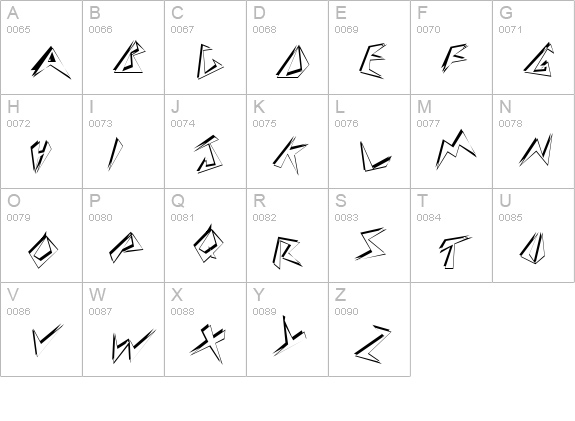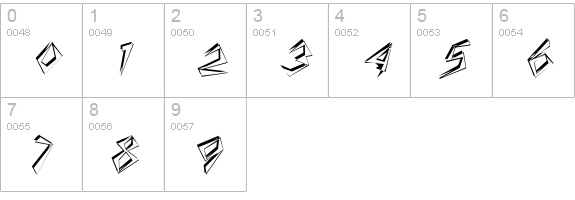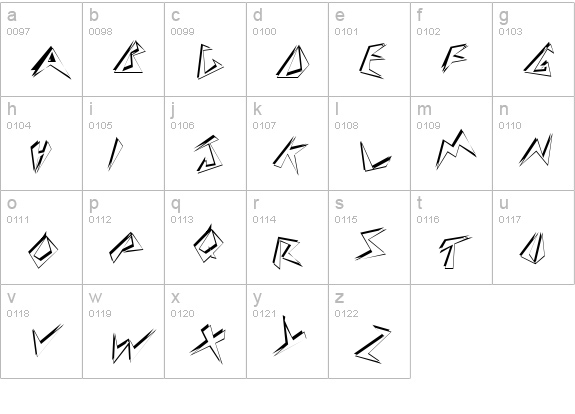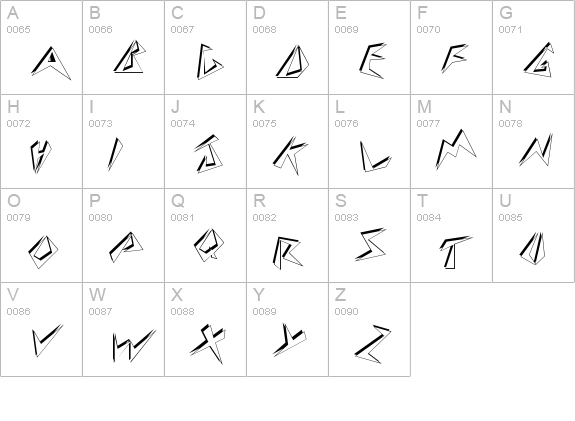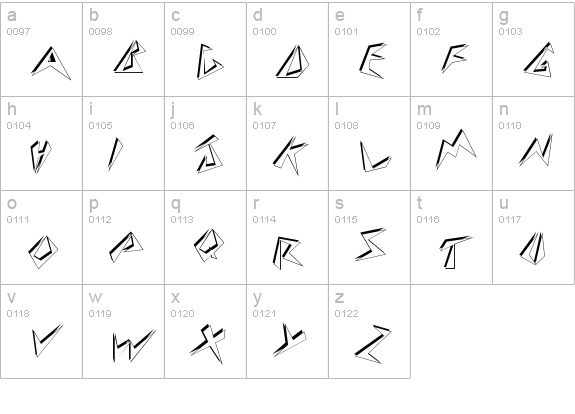
StingerShadowSkewed Regular Font Details
StingerShadowSkewed Regular is the standard, neutral variant in the StingerShadowSkewed typeface family \xE2\x80\x94 well suited to general body text, paragraphs, and standard typographic work.
StingerShadowSkewed Regular font is a dynamic and eye-catching typeface that adds a touch of modern flair to any design project. With its sharp, edgy edges and unique slanted appearance, this font exudes a sense of boldness and sophistication. Whether you're working on a logo, poster, or website, StingerShadowSkewed Regular is sure to make a statement and leave a lasting impression on your audience. Its sleek and stylish look makes it perfect for projects that require a contemporary and edgy vibe. Best of all, StingerShadowSkewed Regular font is available for free download at FontsMarket.com, making it easily accessible to designers and creatives looking to add a touch of flair to their work. Don't miss out on the opportunity to enhance your projects with this versatile and striking font. Download it today and let your creativity soar!